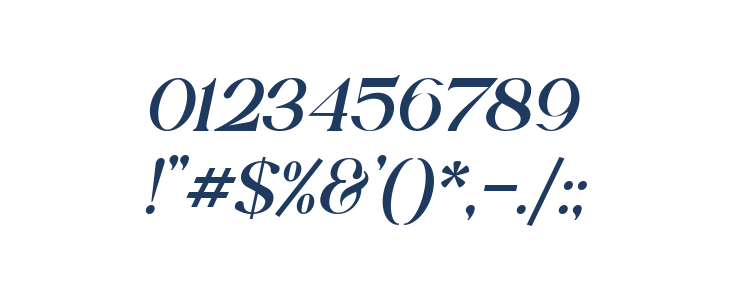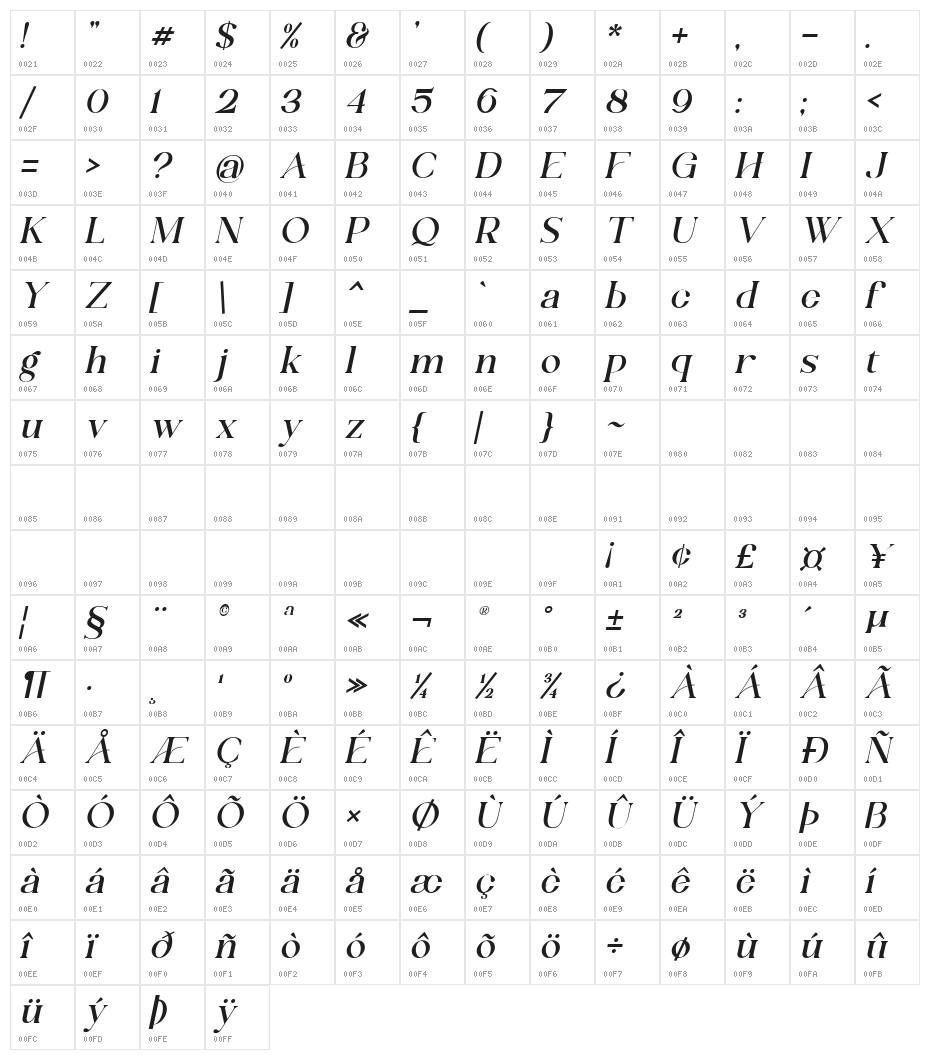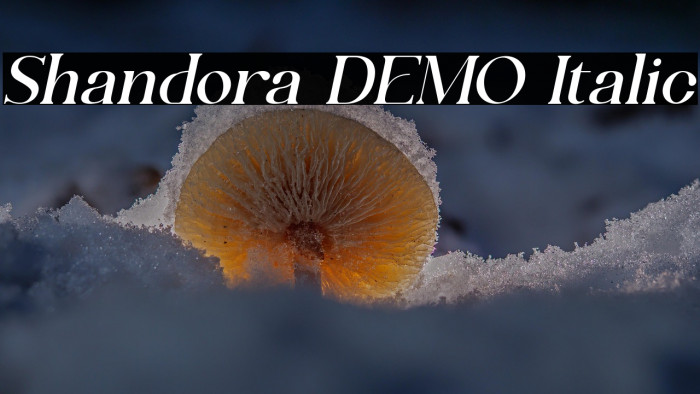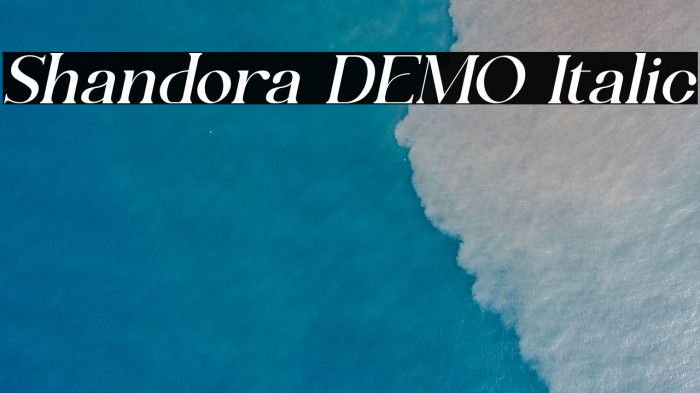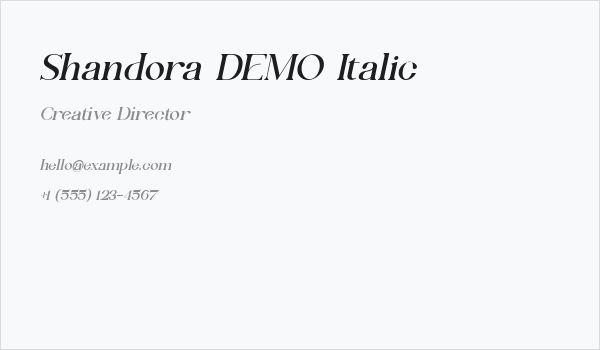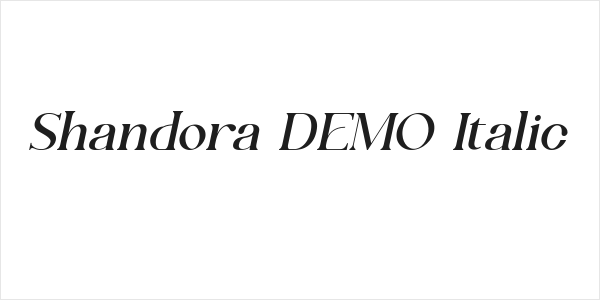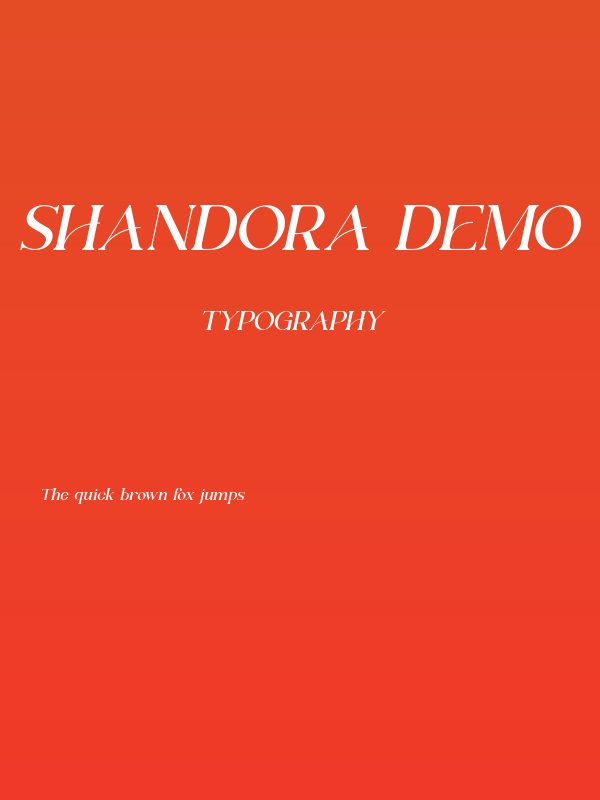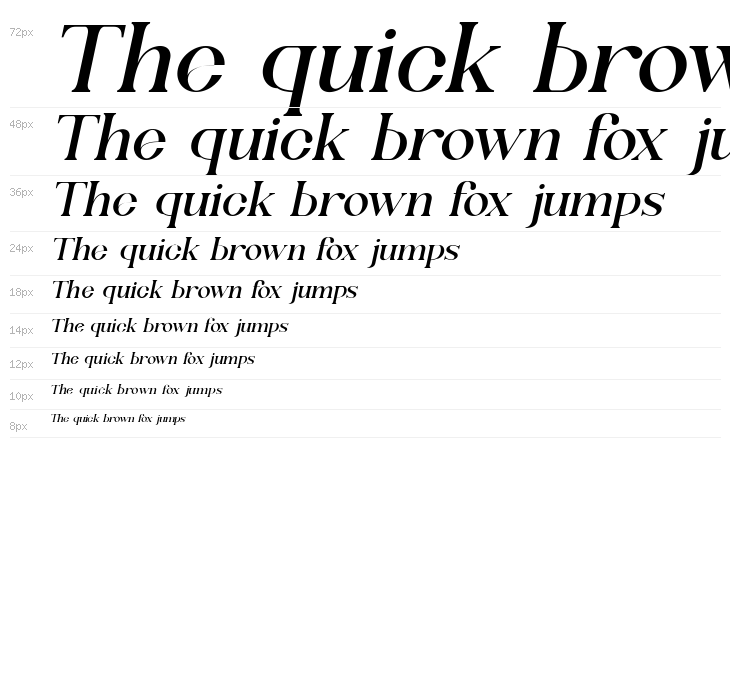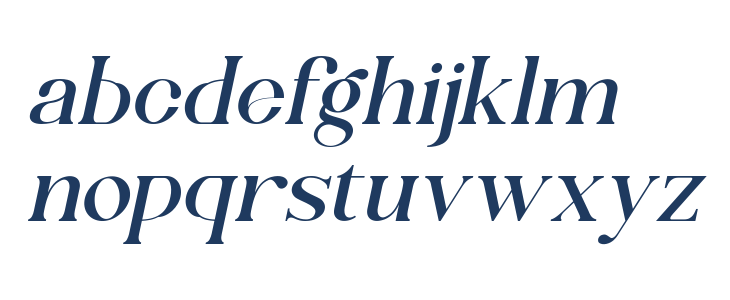
Shandora DEMO Italic Font
Shandora DEMO Italic Description
This elegant and sophisticated font features a classic italic style with a refined and flowing appearance. The letters are slightly slanted, giving a sense of movement and grace. The strokes are smooth and consistent, with moderate contrast between thick and thin lines, adding to its readability and charm. The uppercase letters are tall and commanding, while the lowercase letters maintain a harmonious balance. The numerals are clear and well-defined, making them suitable for various applications. Special characters are thoughtfully designed, enhancing the overall aesthetic of the font.